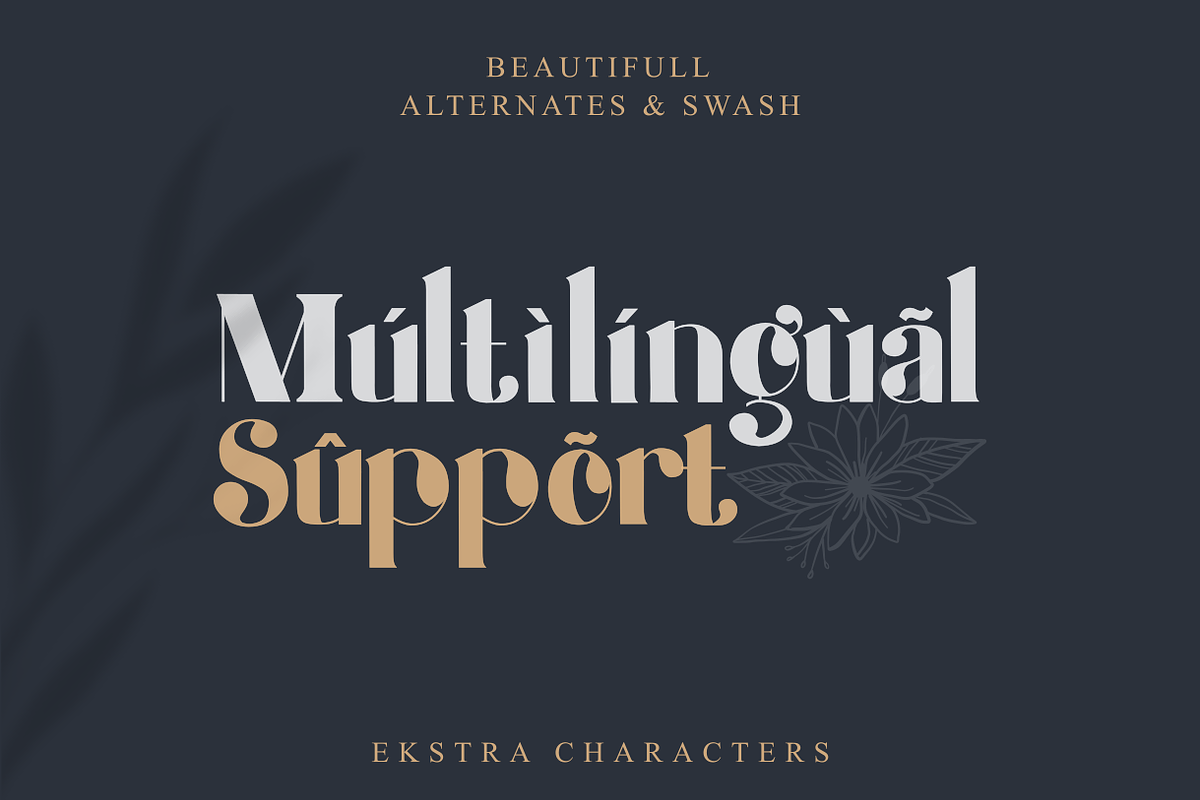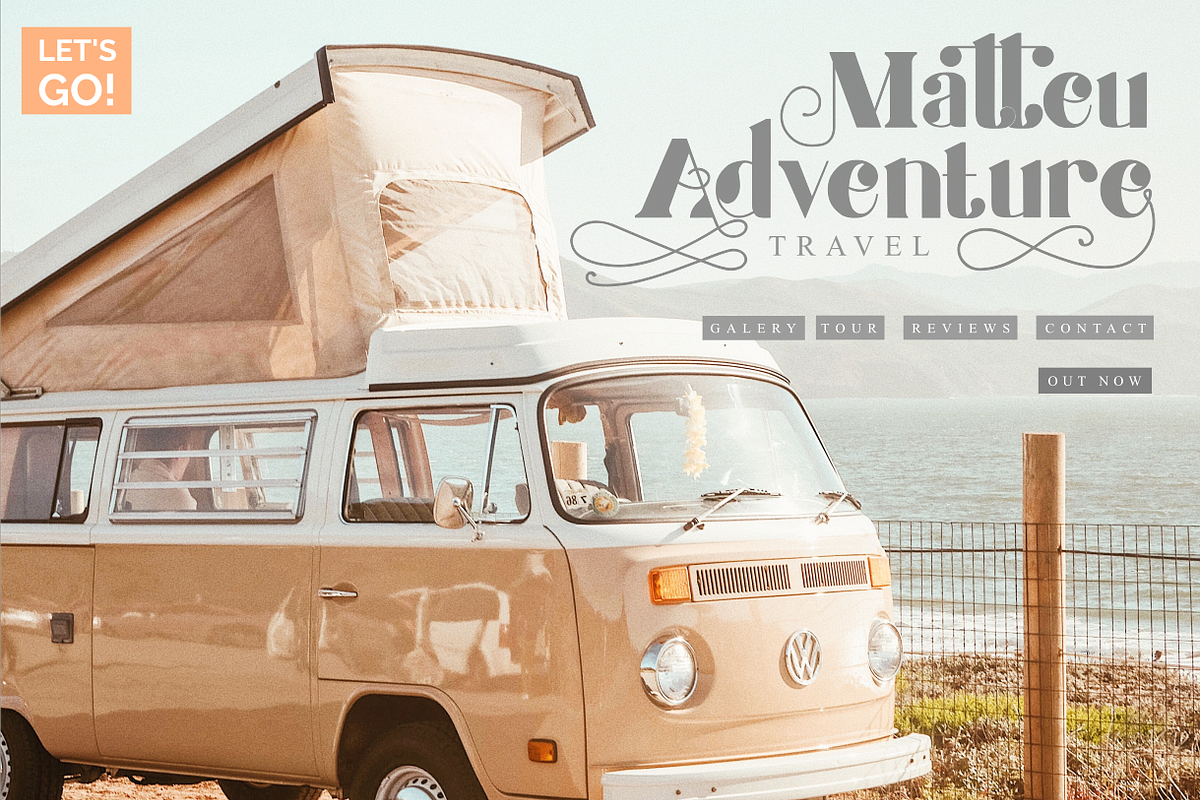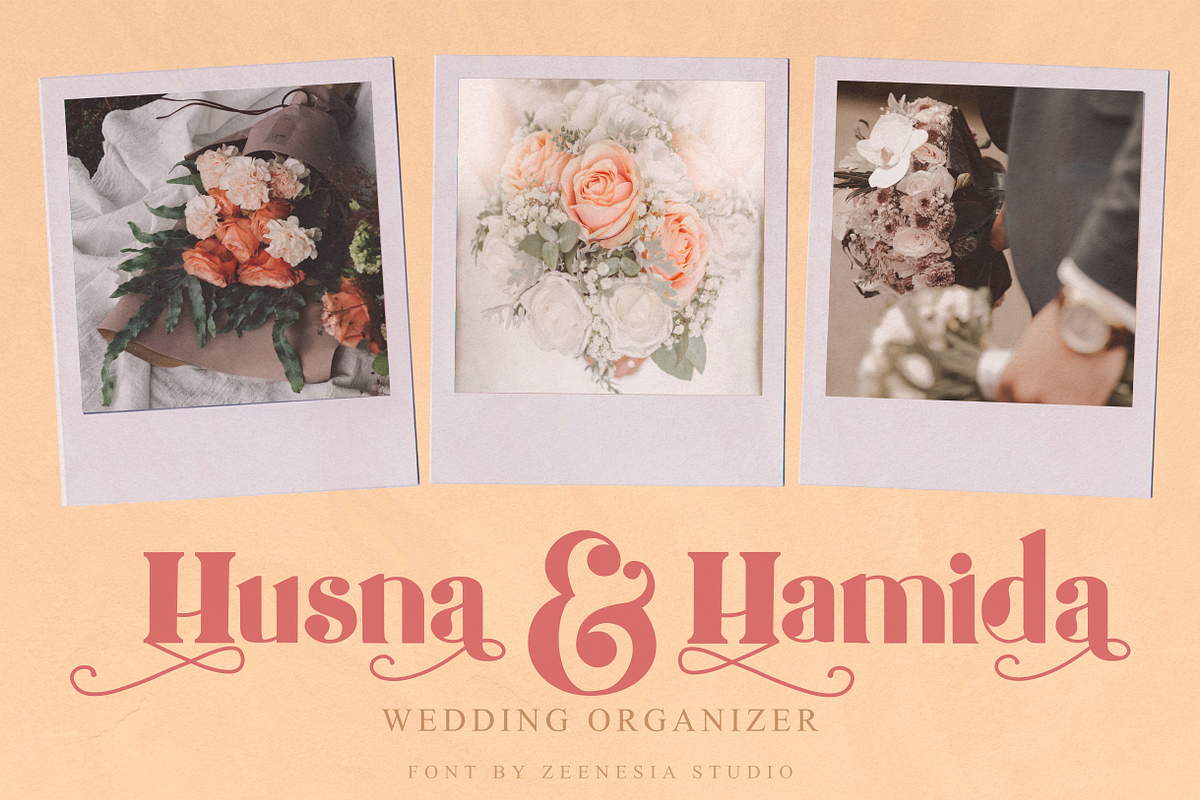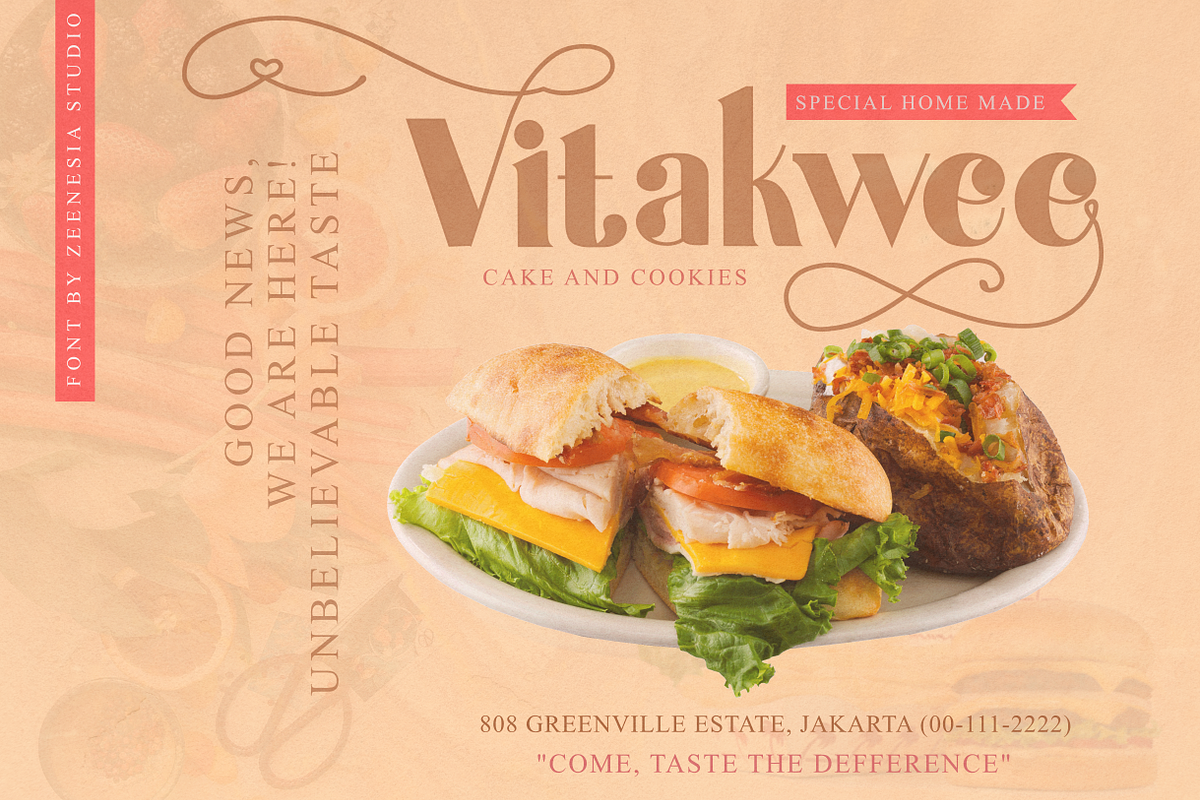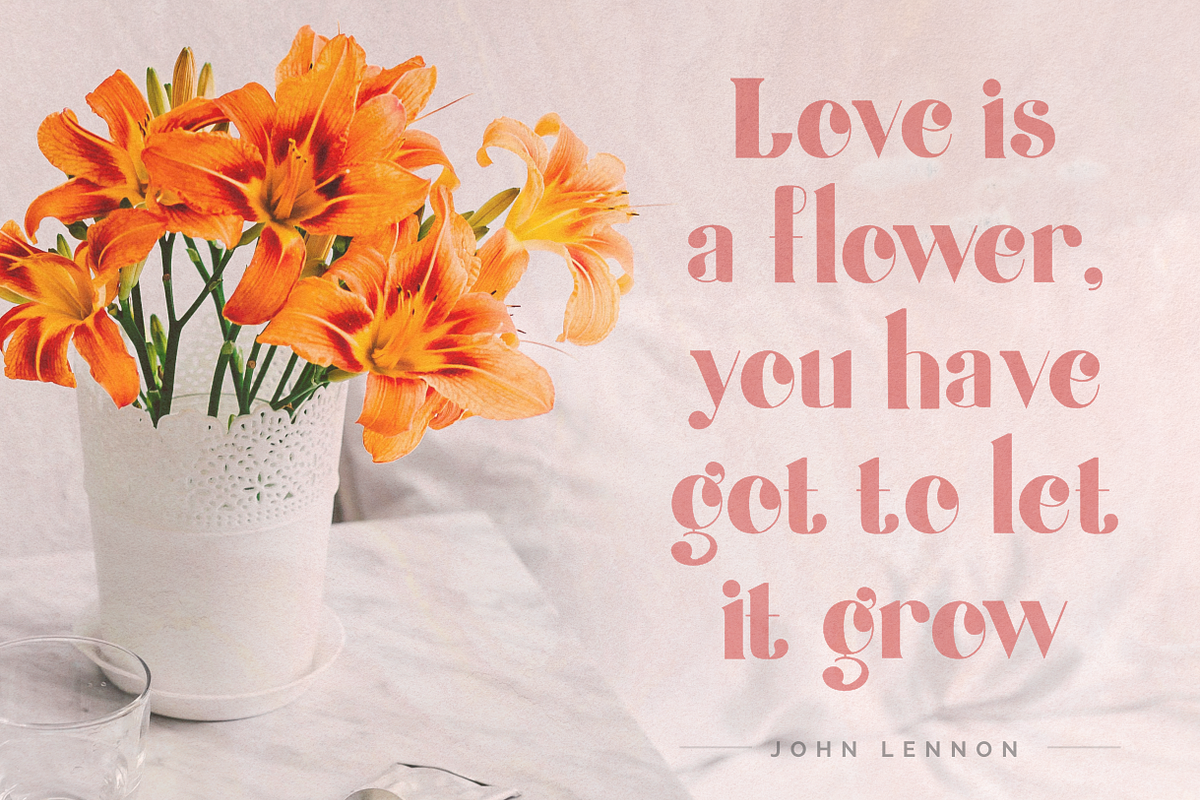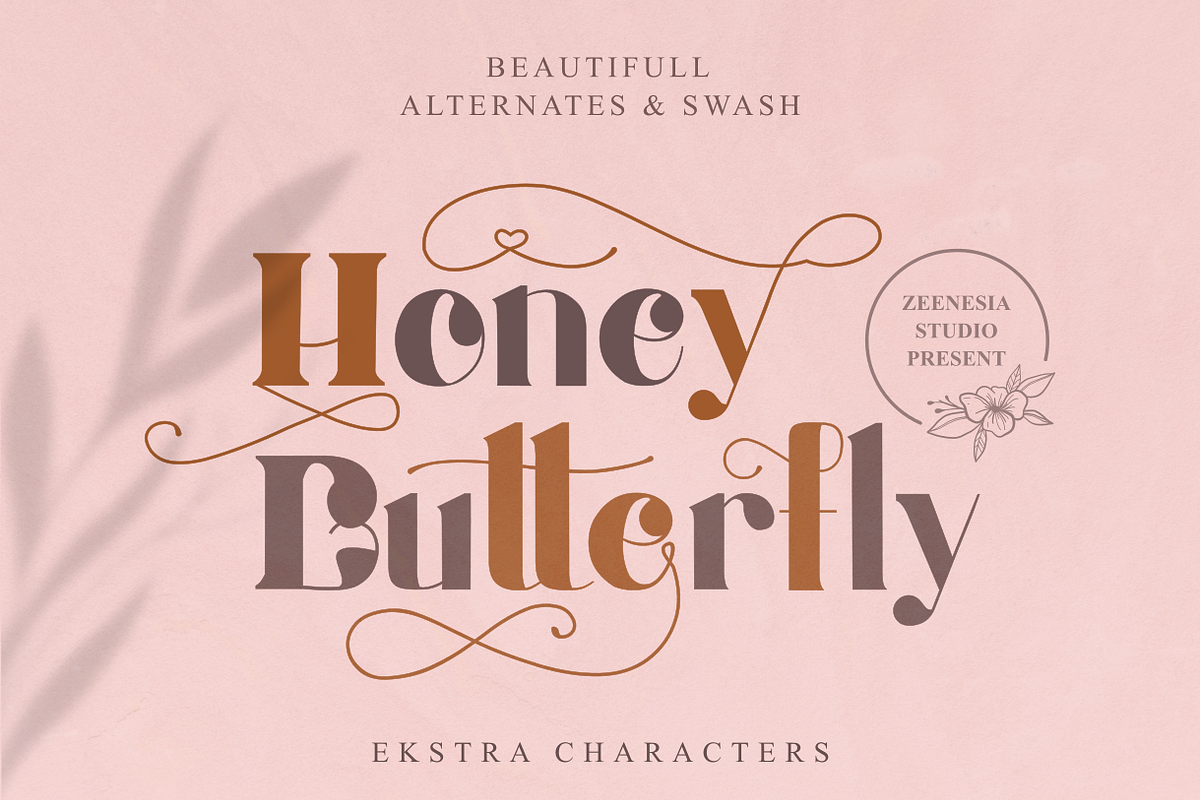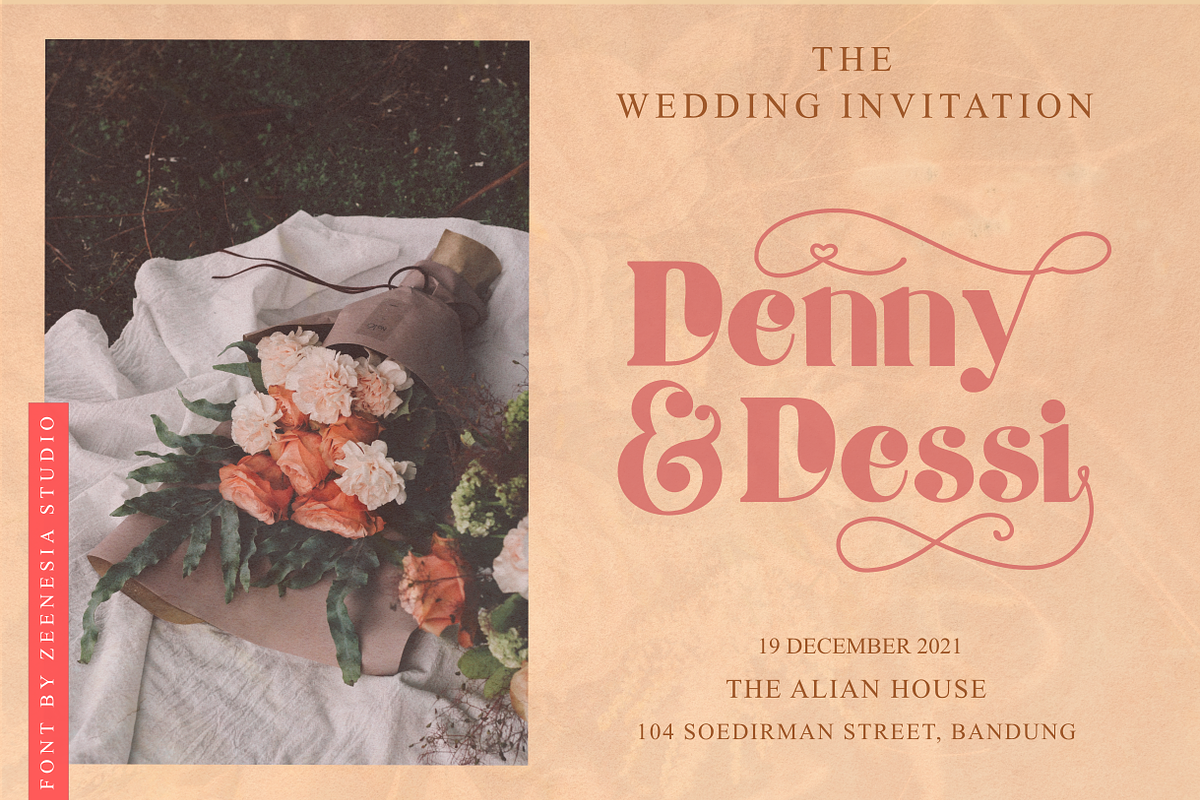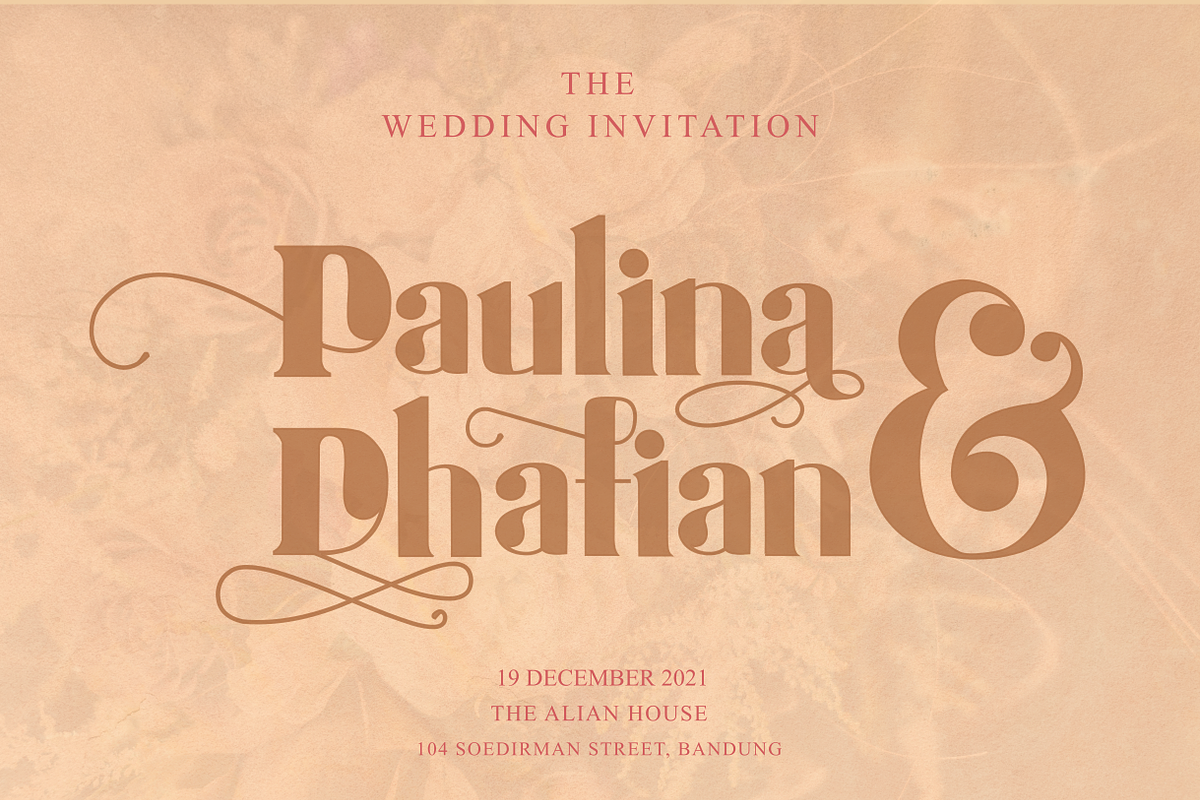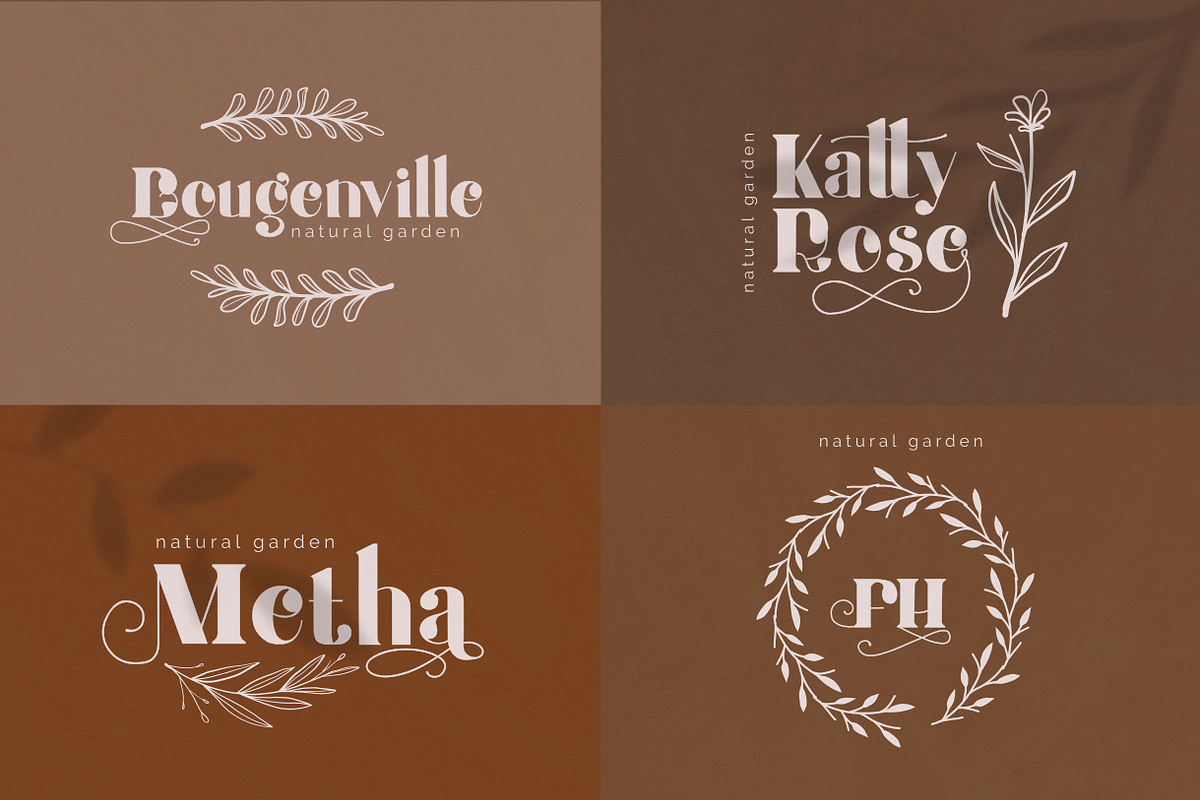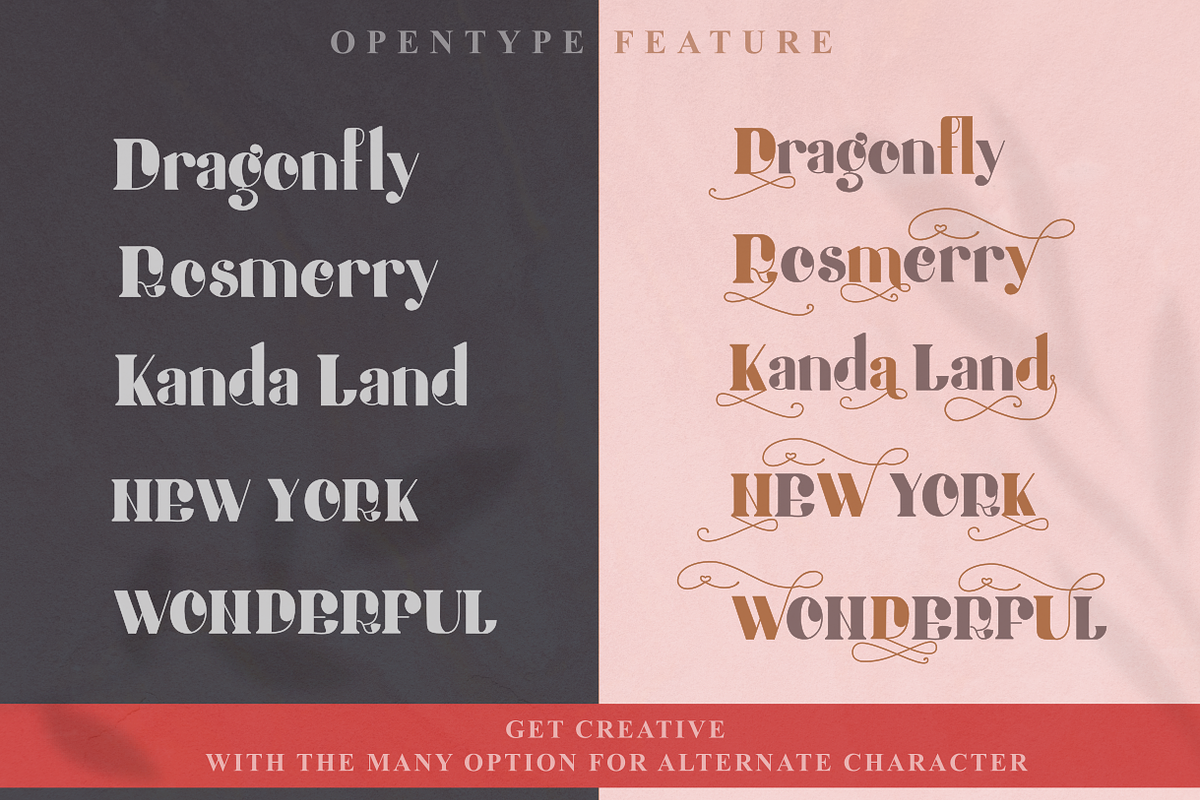
Honey Butterfly - Beauty Typeface
Honey Butterfly - A Beauty Typeface
Honey Butterfly is a beauty typeface that's perfect for creating gorgeous headlines and designs with personality. Honey Butterfly makes an excellent typeface for vintage graphics, and the clean lines, elegant look to logos, wedding invitations, editorials, and more. Create gorgeous headlines with an all caps design, or try the lowercase for a delicate look that's simply beautiful. Download Honey Butterfly for your next project today.